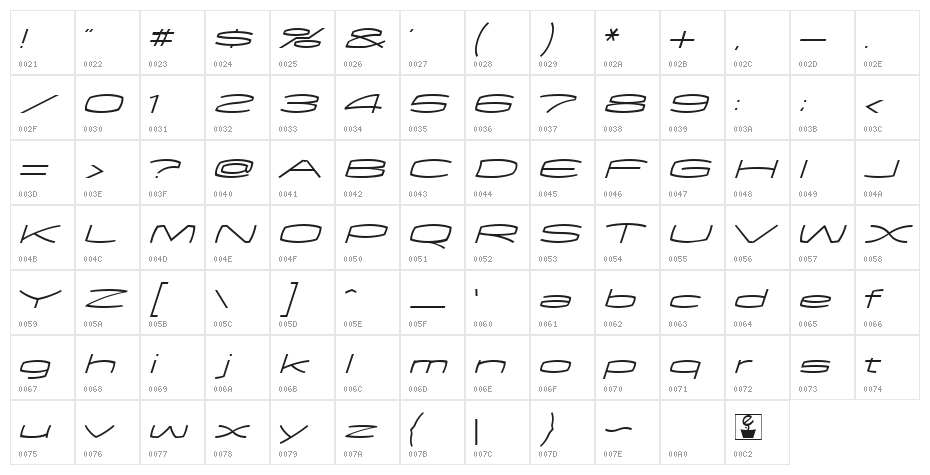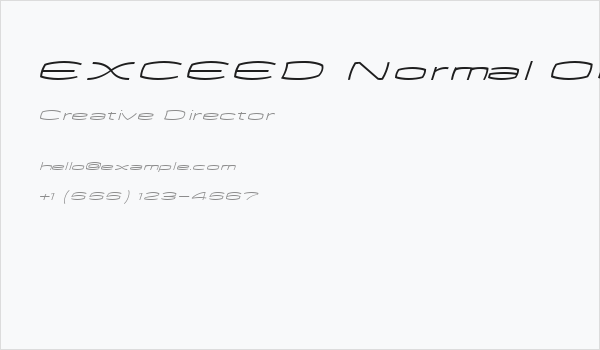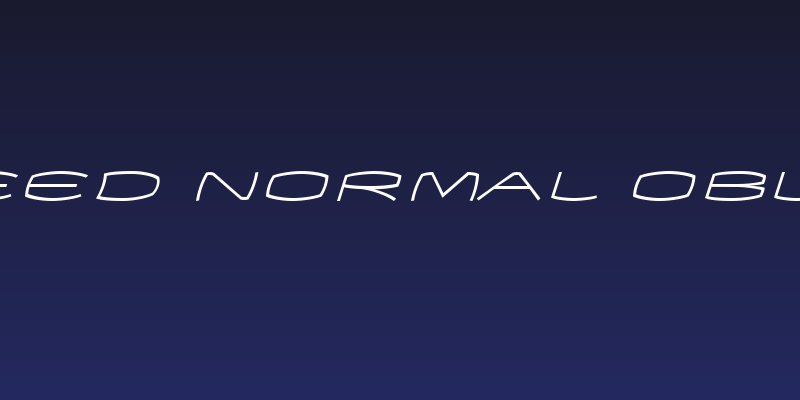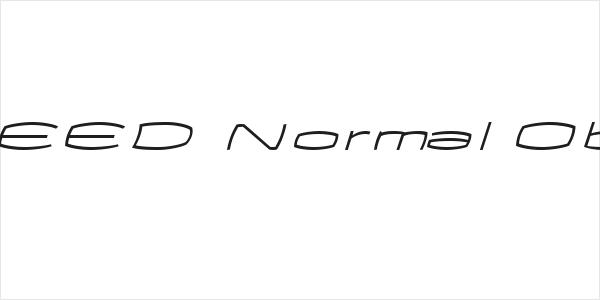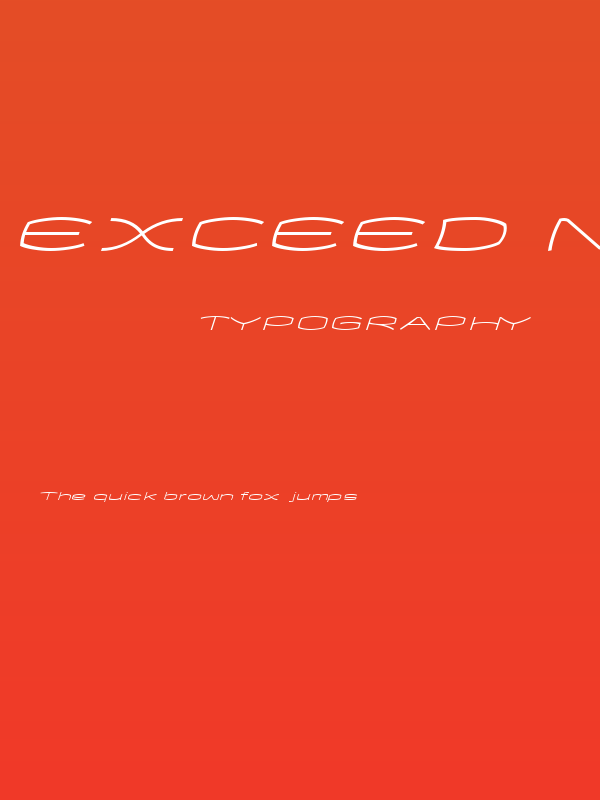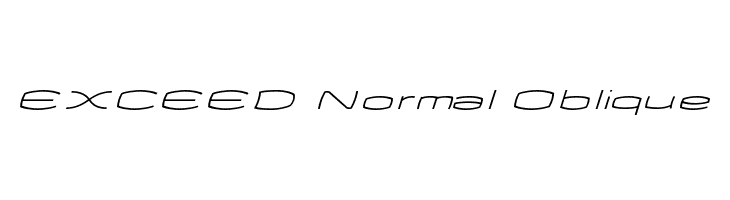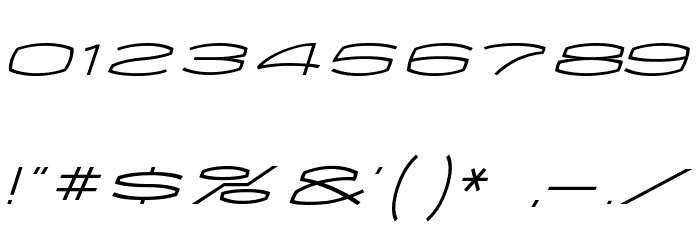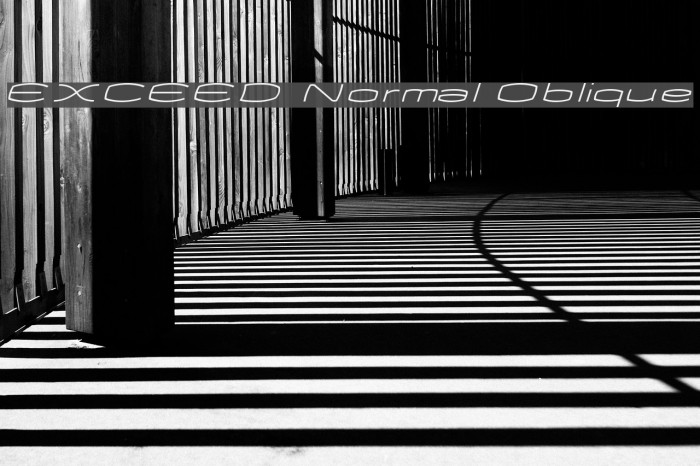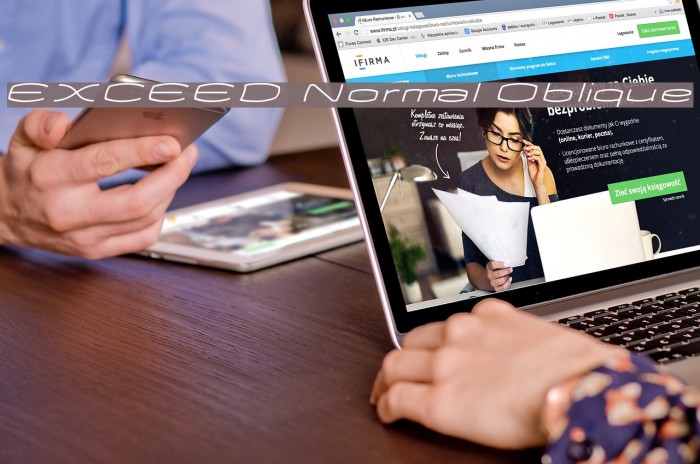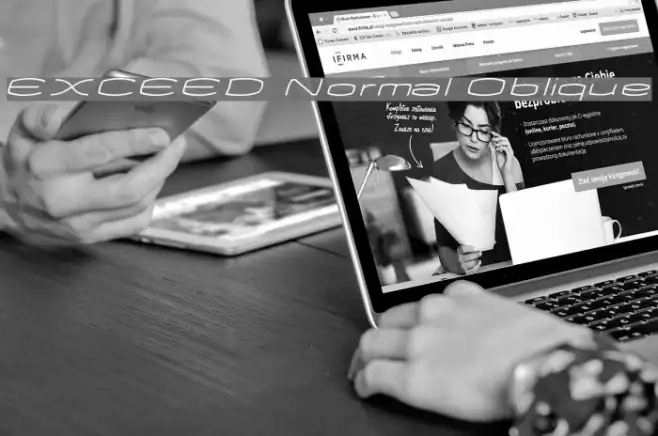
EXCEED Normal Oblique Font
EXCEED Normal Oblique Description
This font features a sleek and modern design with an oblique orientation, giving it a dynamic and forward-moving appearance. The characters are slightly elongated, with a consistent stroke width that maintains a clean and uniform look. The uppercase and lowercase letters are well-balanced, with a subtle slant that adds a sense of motion and elegance. The numerals are distinct and easy to read, complementing the overall style. Special characters are included, maintaining the same oblique and streamlined aesthetic. This font is versatile, suitable for a variety of design projects that require a contemporary and stylish touch.